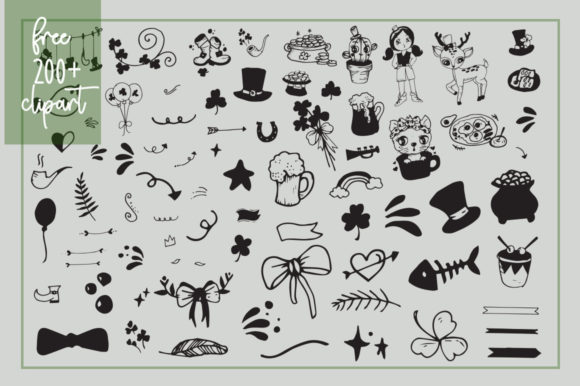
Patrick Pretty Font
db-ku.com - Script & Handwritten -- Patrick Pretty is an elegant and jolly duo styled (display and handwritten) font. This original look will appeal to a wide range of crafty ideas, from letterheads and titles, to stationery.